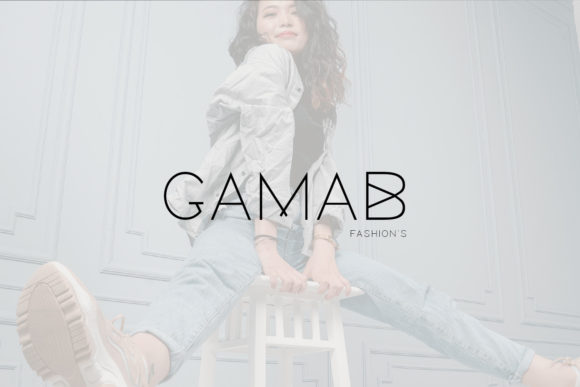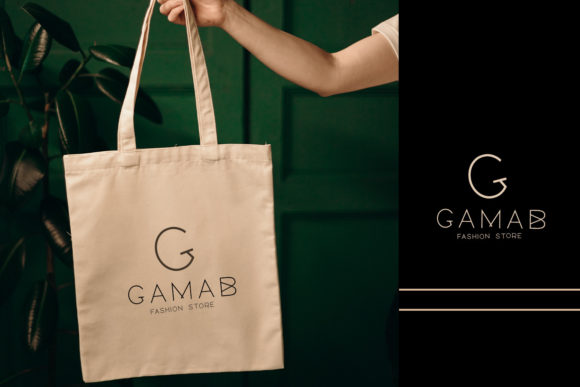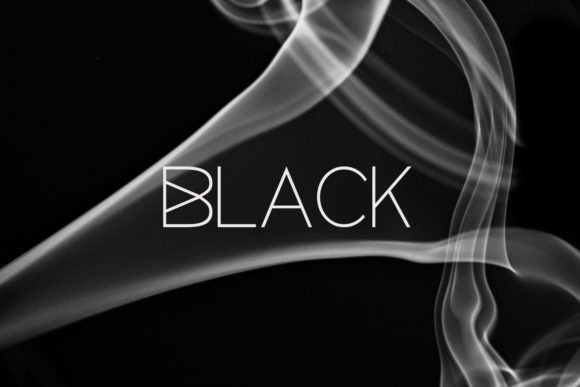
Unlock the Power of Black Font: Elevate Your Designs with Simplicity
You know that moment when a spark of creativity strikes, and you envision the perfect visual identity for your project? Maybe it’s a bold logo, a striking headline, or a perfectly balanced composition. For many designers, that spark often leads to a search for the perfect font to bring their vision to life. Enter Black Font, a sleek and versatile sans serif font that’s ready to elevate your designs to new heights.
Black Font is more than just a font – it’s a tool that can be tailored to fit a wide range of creative projects. From sleek and modern websites to elegant print materials, this thin and simple font is the perfect companion for any designer looking to add a touch of sophistication to their work.
Key Features of Black Font
- Font Family: Black Font is a sans-serif font family designed for digital use, with a clean and modern aesthetic.
- Character Set: Supports a comprehensive character set, including Latin, Cyrillic, Greek, and Devanagari scripts, making it suitable for multilingual applications.
- Unique Characteristics: Black Font features a unique blend of modern and geometric elements, giving it a distinctive look that sets it apart from other sans-serif fonts.
Designer Review: Black Font
First off, I want to say that Black Font has some great qualities that make it a solid choice for many designs. ✨ Its sleek and modern aesthetic is perfect for creating a sophisticated and professional look. The font is also highly legible, making it easy to read even at smaller sizes.
Here are some specific things that I think work well in Black Font:
- Its clean and minimalist design makes it versatile and easy to pair with other fonts.
- The font is highly legible, even at smaller sizes, making it perfect for body text.
- It’s a great choice for creating a sense of luxury and sophistication in your design.
- The font may not be the best choice for creative or playful designs, as it can come across as too formal.
- It may not be as effective for headings or titles, as it can be a bit too subtle.
Overall, I think Black Font is a solid choice for many designs. While it may not be the best fit for every project, it’s a great option for creating a sophisticated and professional look. With its clean design and high legibility, it’s definitely worth considering for your next design project.
Black Font: A Practical Application Guide
Tips for Getting the Most Out of Black Font
Use black font to create contrast and make your text stand out. It’s also a good idea to use a clear and easy-to-read font to ensure that your message is conveyed effectively. Experiment with different font sizes and styles to create a visually appealing design.
Black font is commonly used in logos, titles, headings, and other text elements where you want to create contrast and make your text stand out. It’s also a good idea to use black font for text elements that require a high level of professionalism and formality.